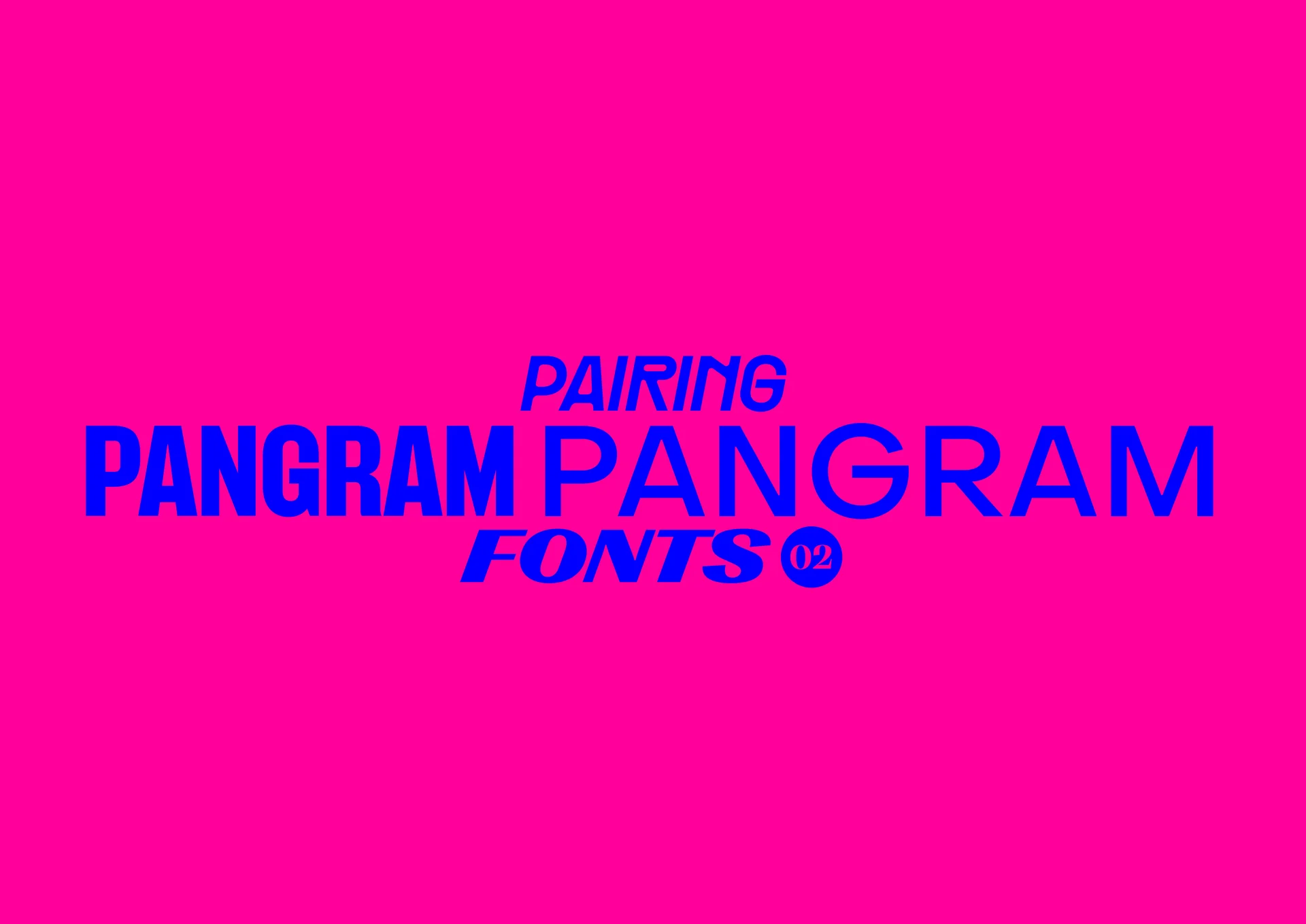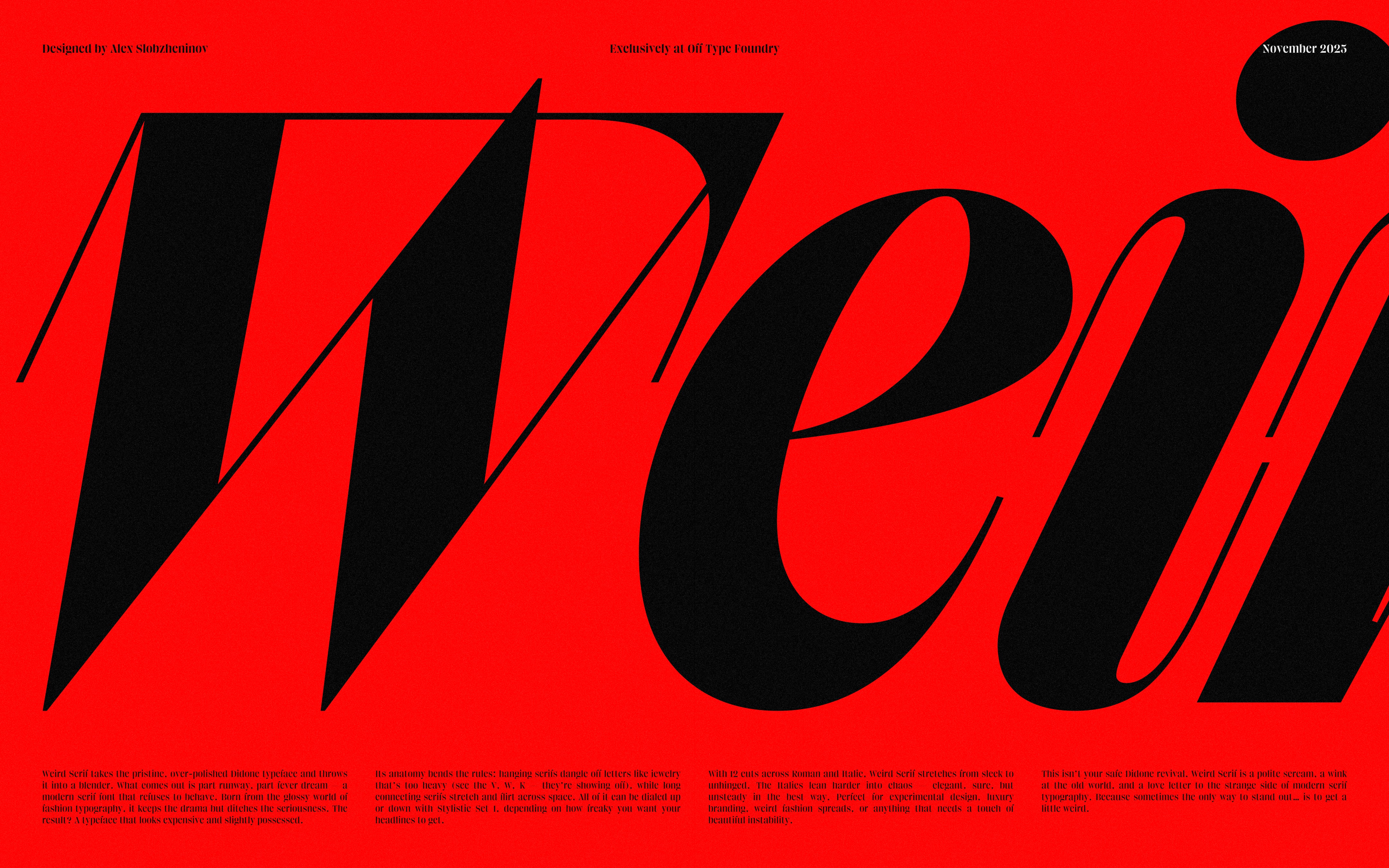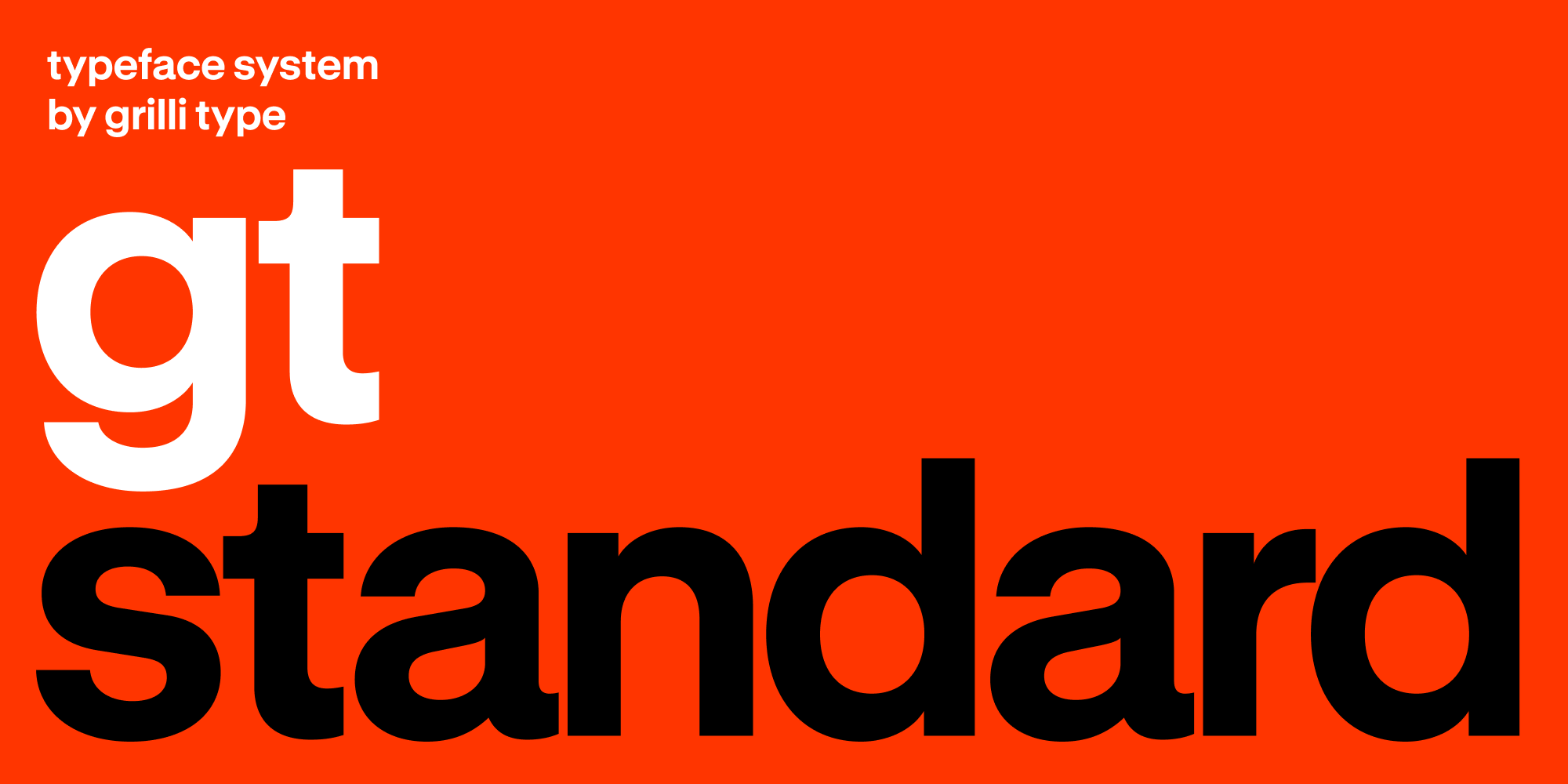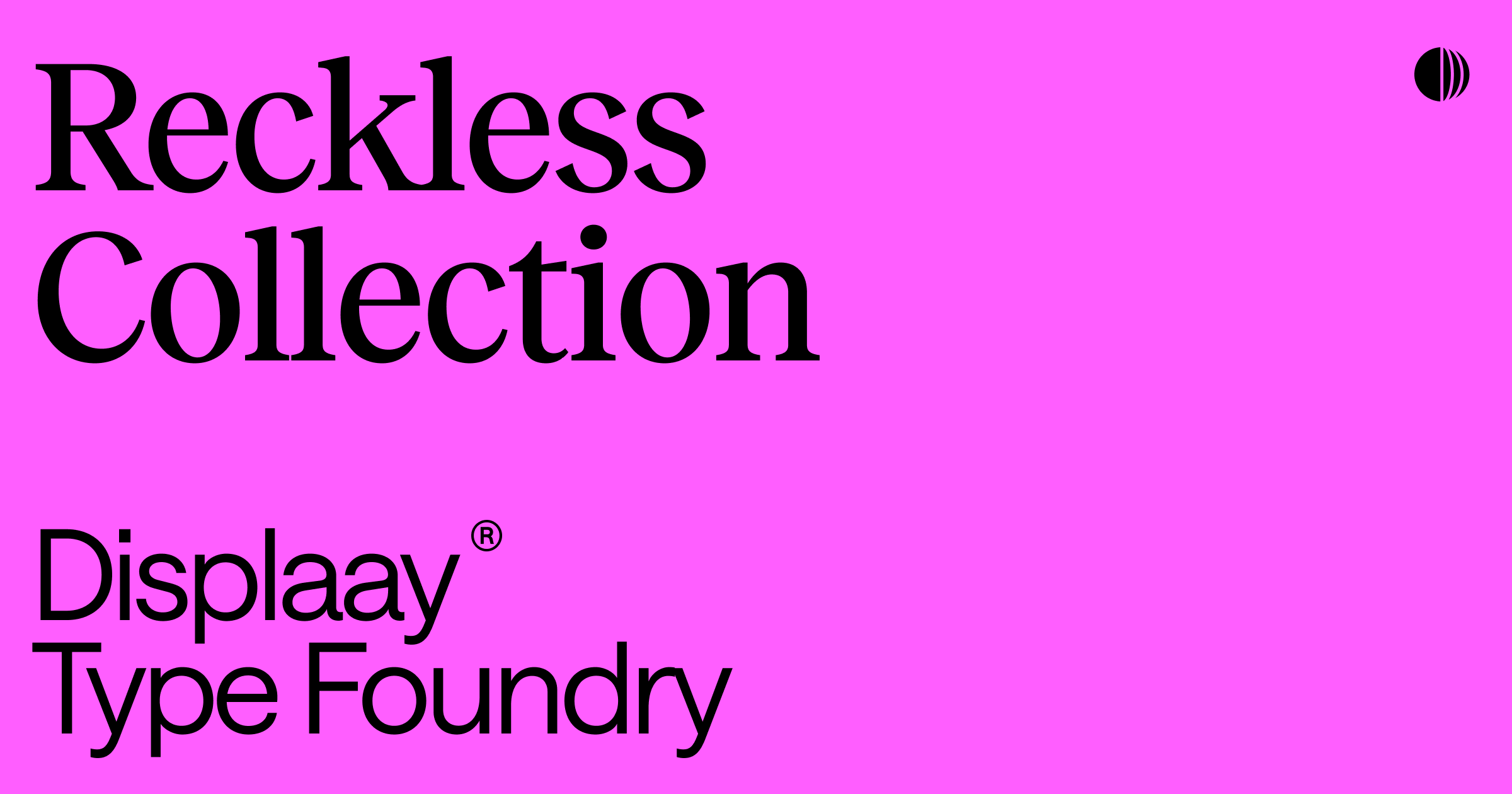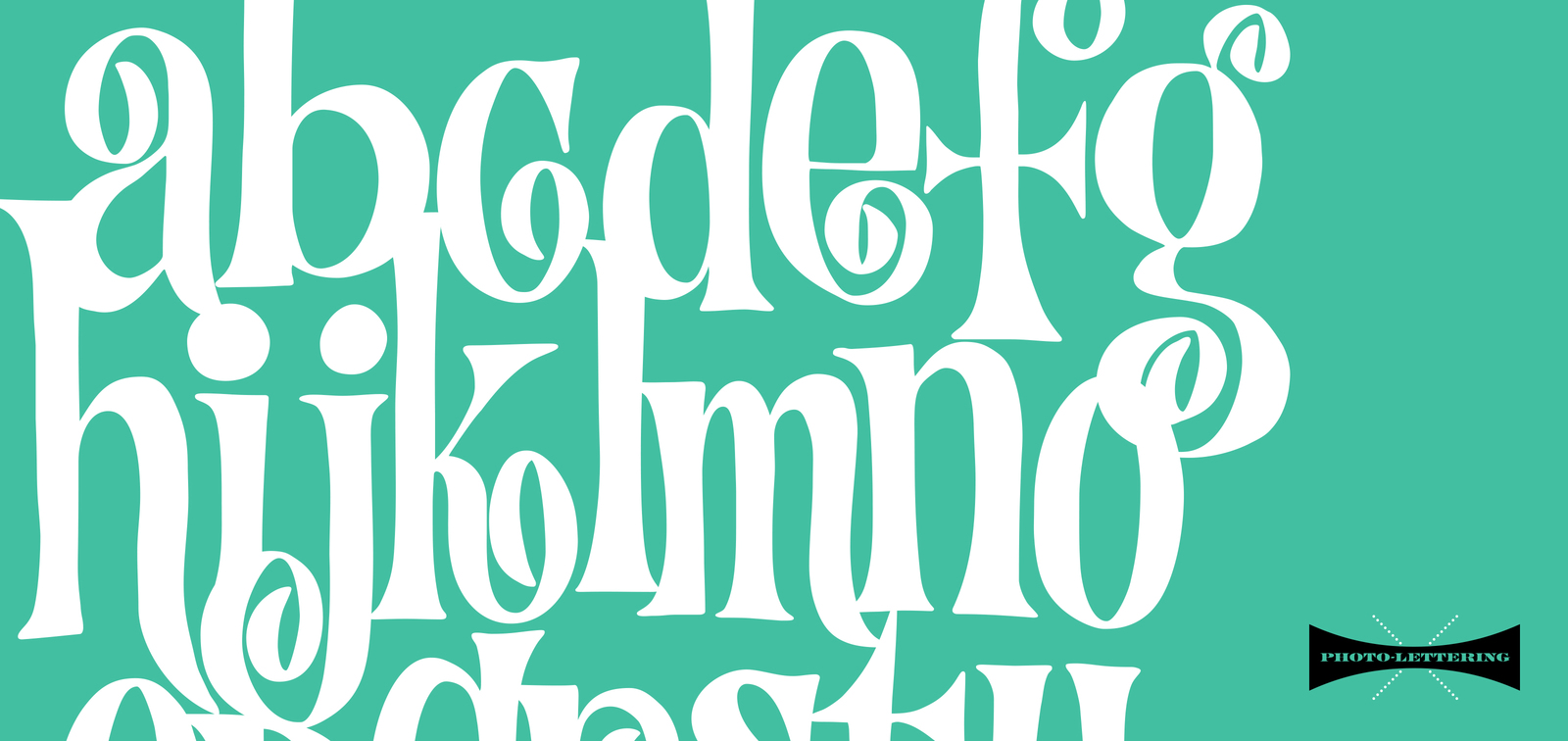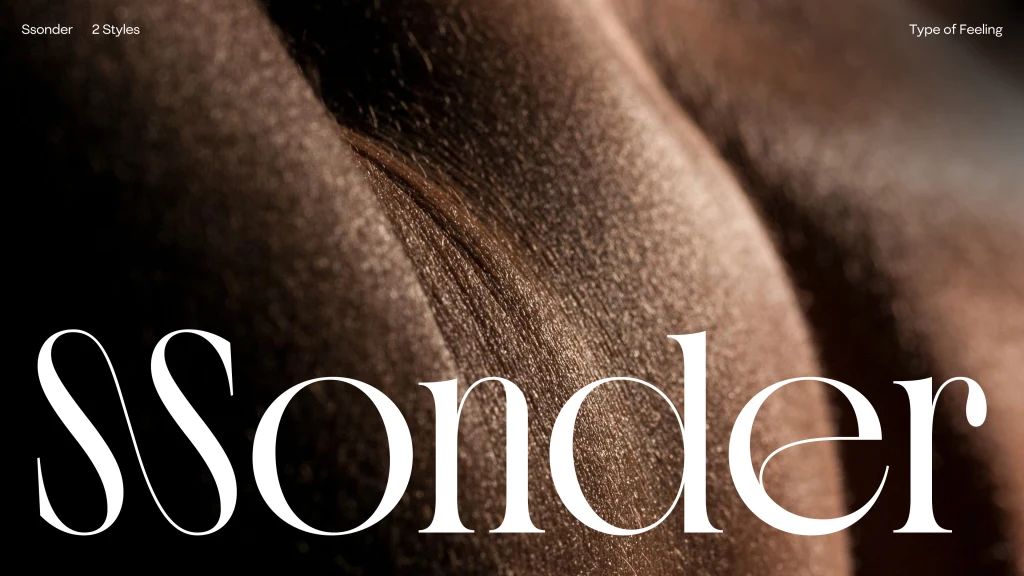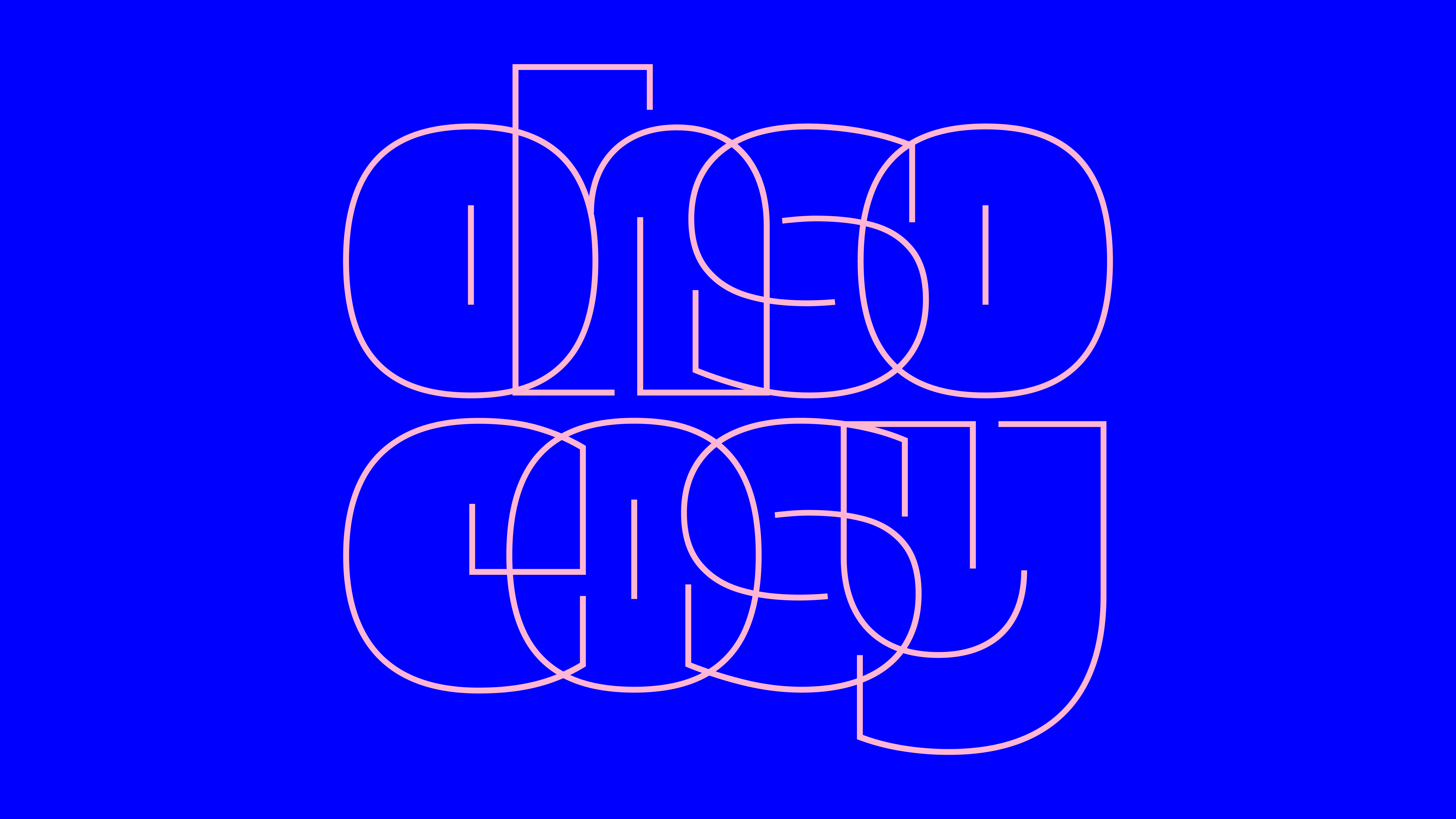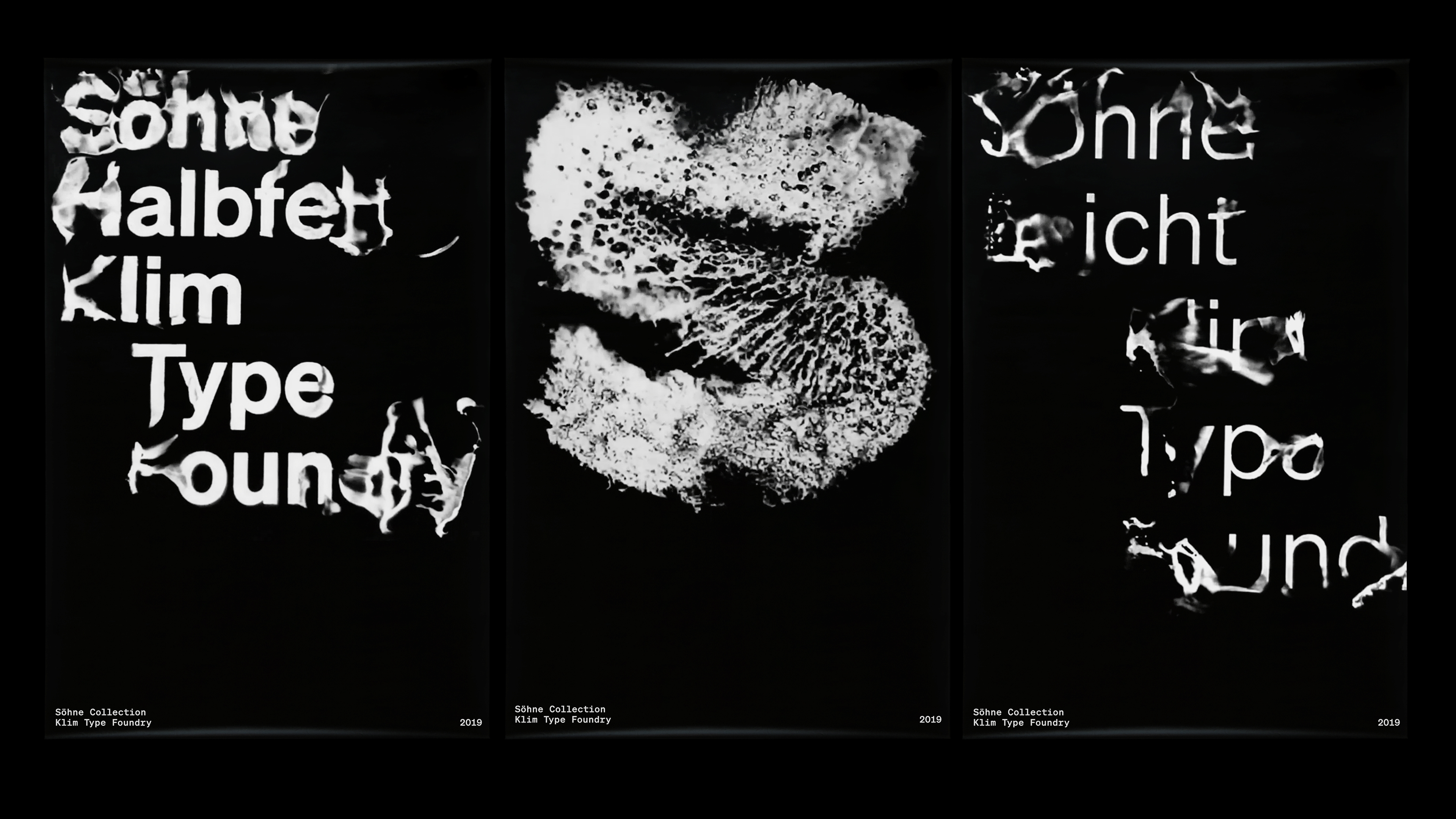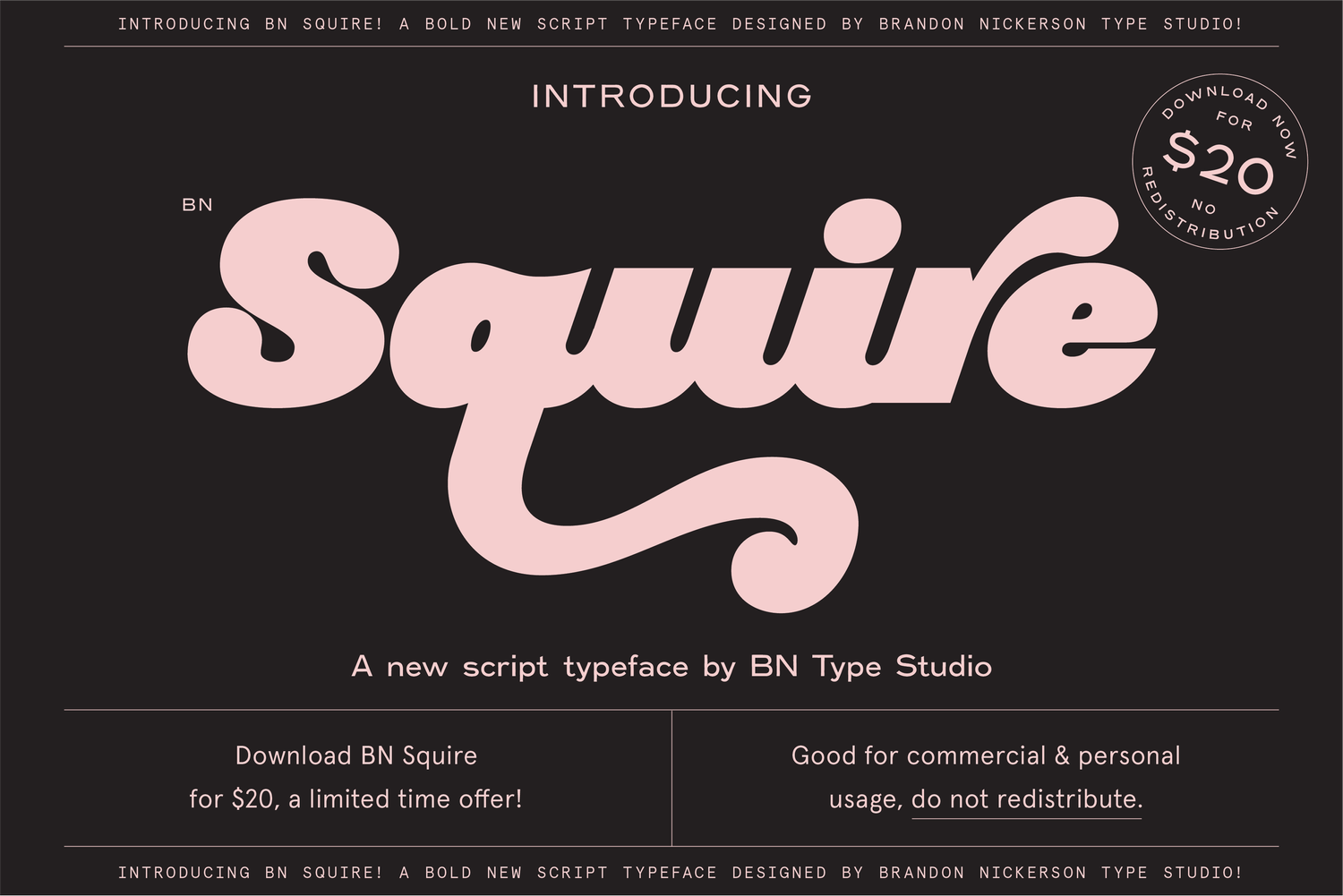
01. Type of Feeling
Created by legendary American designer and art director Jessica Walsh, Type of Feeling is an independent type foundry shaped by emotionally driven typographical design. While it offers a diverse array of retail typefaces, the foundry also offers bespoke services, motivated by the belief that "unique typography can be a brand's most distinctive asset." Specialised design options include custom logo types, custom fonts and full-type families.
02. Fincker Font Cuisine
Fincker Font Cuisine is an indie foundry created by French designer, Julien Fincker. With a varied range of retail fonts to choose from. Fincker Font Cuisine is perfect for contemporary projects that need a unique flair (they even offer modifications if you're after a small tweak). For a more hands-on approach, Fincker Font Cuisine offers custom and corporate fonts as well as language extensions and logos. Inspired by Julian's family history, the foundry's logo proves that if you're after heritage design, you're cooking with the right folks.
03. Off Type Foundry
As the name suggests, Off Type Foundry focuses on unexpected, offbeat designs that are, and I quote, "really really well made." Taking pride in their "wonderfully weird" typefaces, Off's designs are a "vibrant/ecstatic/electric/charming hodge-podge of inspirations, legacies and letterforms – from royalty and rockets to the silver screen and b-sides." Each font is free to try, giving you the perfect opportunity to experiment and commercial licenses are available for purchase when you find your perfect match.
04. Kilm Type Foundry
Founded by Kris Sowersby in 2005, Kilm Type Foundry create typefaces shaped by a fine balance of historical knowledge and rigorous contemporary craft. Guided by the ethos, “a thing well made," each unique typeface echoes an evolving creative culture. Working with global brands like The Financial Times, PayPal and National Geographic, Kilm boasts an impressive repertoire of custom font clients. From delicate to decorative, each typeface can be licensed for use across physical and digital applications.
05. Grilli Type
Grilli Type was founded by Swiss designers Noël Leu and Thierry Blancpain in 2009, formed as a "collaborative avenue" for working with other creatives. Together, the pair create "type with a point of view", with the aim of creating meaning beyond words. Clean, contemporary, and fresh, each design is built to be flexible, adjusting to challenging project needs. Grilli Type also offers a wide range of custom options, from typeface customisation to language extensions and custom font families.
06. House Industries
Rooted in drawing, painting, and lettering, House Industries' typefaces bring a bespoke, handcrafted quality that radiates warmth and soul. With iconic clients like Hermes, Herman Miller and MTV, the design studio's diverse clientele speaks to its diverse offering of typefaces. Perfect for bold graphics with a distinctly familiar charm, House Industries' typefaces are a great option for projects that require a playful feel.
07. Displaay Type Foundry
Creating unique typefaces that are missing from the market, Displaay Type Foundry offers a diverse selection of retail typefaces for a variety of projects. "Often inspired by specific moments of imperfection and spontaneous irregularity," Displaay's fonts are prompted by purpose and reason, creating new typefaces "with the utmost responsibility." Displaay also offers a custom typeface service, as well as alterations to it's exisiting designs.
08. Studio Few
One for the minimalist lovers, Studio Few offers a stripped-back selection of purpose-built fonts for contemporary designs that need an elevated element. As the website claims, "Few suggests less, but never absence. It allows for focus on what matters most," reflecting the studio's commitment to balance and focus in their typeface design.
09. F37 Foundry
Manchester-based F37 Foundry creates distinct typefaces to help brands stand out against the crowd. The award-winning foundry creates beautifully crafted type families, with a bespoke focus that considers the identities and sensibilities of its clients. Working with huge global brands like Apple, Google and Pepsico, F37's attention to detail and devotion to storytelling give each typeface a unique flair.